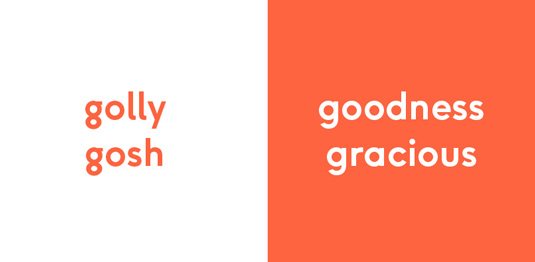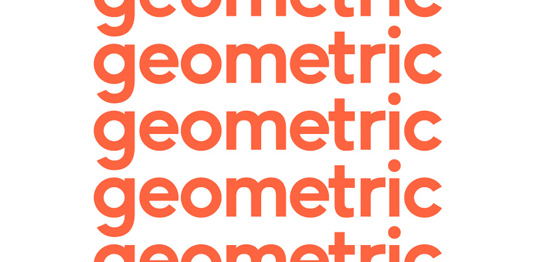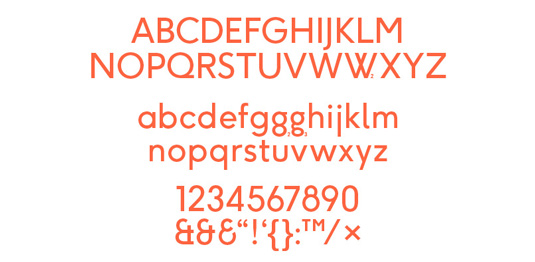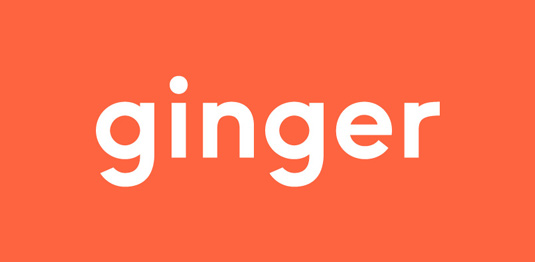
Font of the day: Ginger
Ginger by Rick Banks
This clean, geometric typeface was created by designer Rick Banks. Available from HypeForType, the font is described as being designed in "a modernist Swiss style but with a contemporary geometrical twist".
Based on letterforms of German typographer Paul Renner, Swiss typographer Jan Tschichold and American typographer Herb Lubalin. Ginger contains alternatives and covers an extensive range of Latin-based languages, including Western and Eastern European.